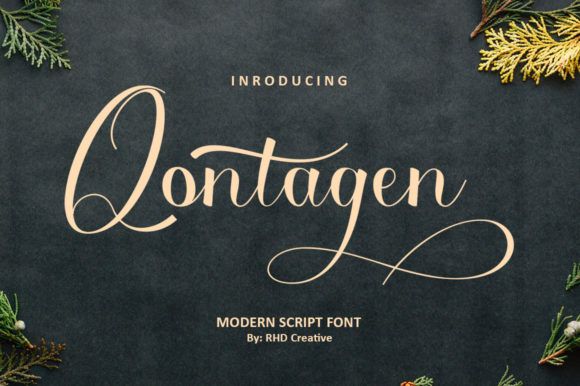
Introducing Qontagen, the script font that will transform your wedding signs into breathtaking works of art. Its classic typography, infused with a touch of modern elegance, will add a timeless charm and sophistication to your special day.
With Qontagen, every letter flows seamlessly, creating an enchanting dance of script that will captivate your guests. The delicate curves and graceful flourishes evoke a sense of romance and whimsy, making your wedding signs not just informative, but captivating.
Whether you're creating elegant table numbers, charming escort cards, or a heartfelt welcome sign, Qontagen will elevate your DIY projects to a new level of beauty. Its versatility extends beyond weddings, making it the perfect choice for invitations, branding, and any creative endeavor that calls for a touch of timeless sophistication.
So, let Qontagen be the storyteller on your wedding day. Its enchanting script will weave a tale of love, joy, and happily ever after, creating memories that will last a lifetime.